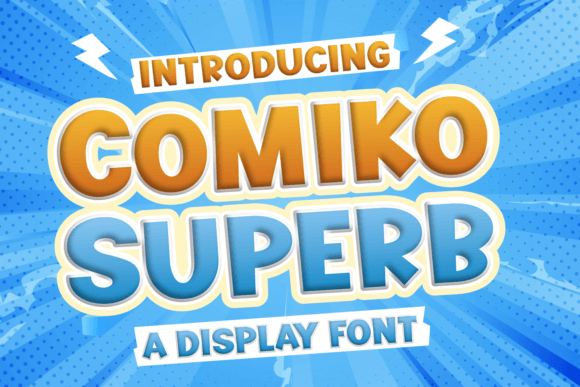
Voyage into the enchanting world of Comiko Superb, a remarkable display font that captivates imaginations and leaves a lasting impression. As a renowned E-commerce SEO expert, allow me to paint a vivid picture of how this extraordinary creation can elevate your projects to new heights of visual allure.
A Masterpiece of Typographic Expression:
Step into a realm where creativity knows no bounds as you unleash the power of Comiko Superb. A font meticulously crafted for those who seek to make a bold statement through typography, Comiko Superb commands attention with its captivating presence and striking personality.
Visual Impact Like No Other:
Embrace the spotlight as you adorn your designs with Comiko Superb. Designed to make your words shine, this font exudes an aura of boldness and charm, leaving an indelible mark on the visual landscape. Its thick, eye-catching strokes add a delightful touch of whimsy, making it the perfect choice for projects that demand attention.
A Versatile Performer:
Comiko Superb is a font of many talents, effortlessly adapting to a myriad of creative endeavors. Whether you're designing book covers that whisper tales of adventure, crafting product packaging that captivates the eye, or creating advertising materials that ignite the imagination, this font is your steadfast companion.
The Perfect Choice for:
• Book covers that transport readers to enchanting realms
• Product packaging that demands attention on store shelves
• Advertising materials that inspire immediate action
• Posters that make a statement in any environment
• Kids' t-shirts that spark joy and ignite creativity
• Apps and games that immerse users in captivating digital worlds
Elevate Your Designs:
Elevate your designs to new heights of visual splendor with Comiko Superb. From fashion boutiques seeking to capture the attention of discerning clientele to tech startups aiming to make a lasting impression, this font is your secret weapon. Unleash your creativity and watch as your projects blossom into masterpieces of visual art.